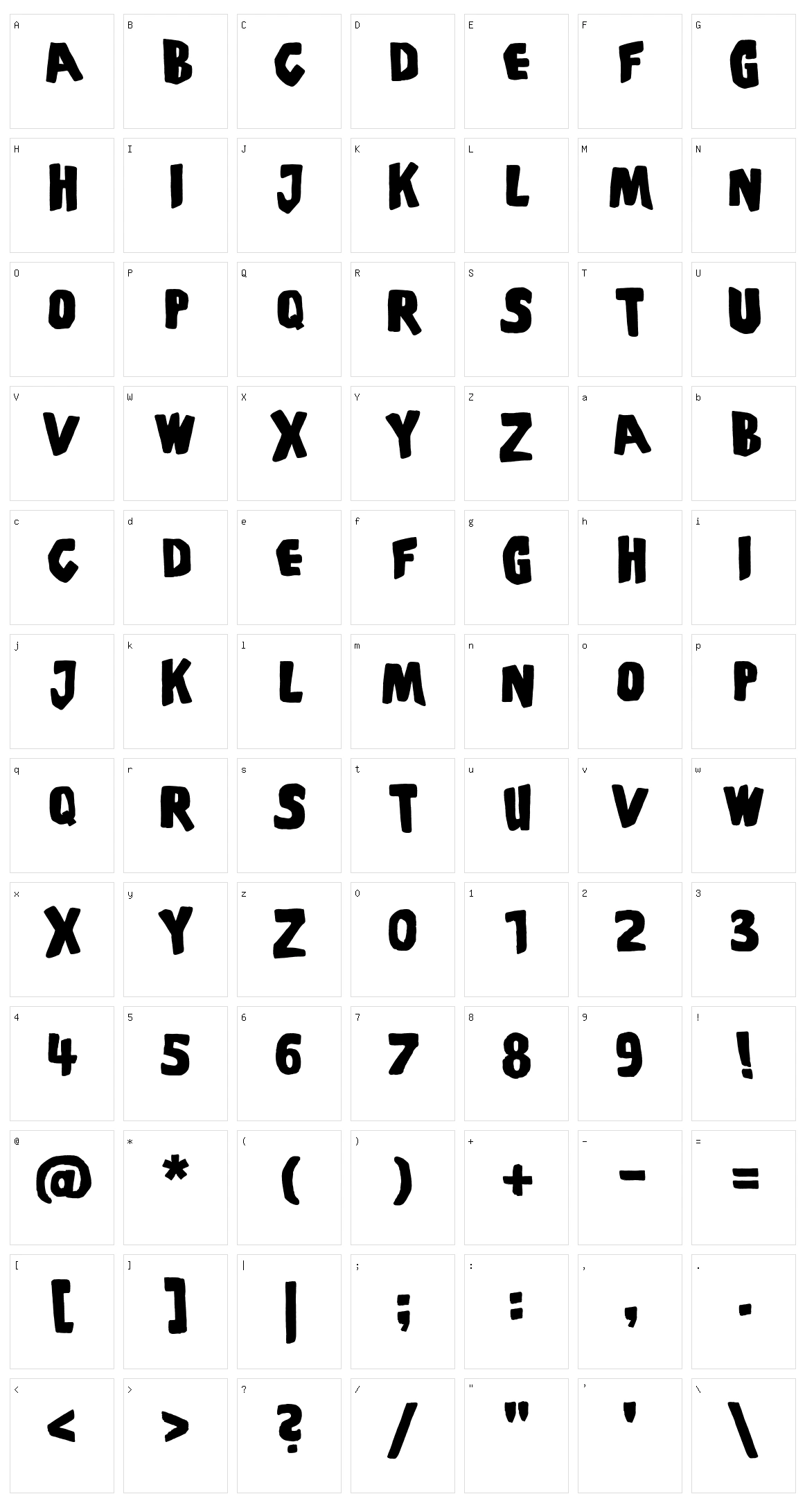
The free font PiS Coffins and Ghosts is carefully designed by Polenimschaufenster, showcasing a thoughtful balance of creativity and usability and falls under the Cartoon font style. When you download the ZIP file, it contains only 49.35 KB of font files, making it lightweight and quick to download. Please review the license details below to understand permitted usage and distribution rights. If license information is not available, we recommend using this font for personal projects only or contacting the author directly for commercial usage permissions.